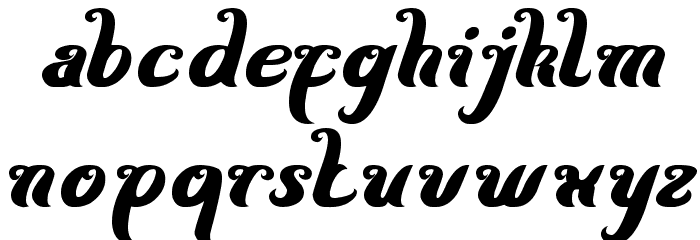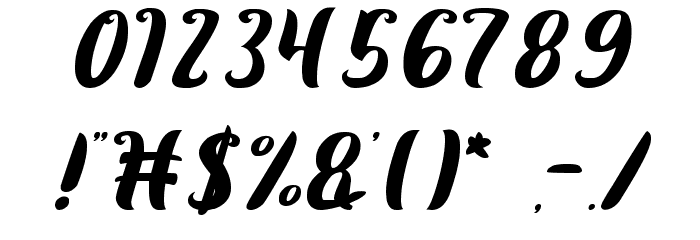
Here Comes The Sun Font
This font features a bold and flowing script style, characterized by its thick, sweeping strokes and playful curves. The letters are interconnected, giving a sense of continuity and fluidity. The uppercase letters are slightly more ornate, with decorative swirls and loops that add a touch of elegance. The lowercase letters maintain a consistent style, with smooth transitions and rounded edges. Numbers and special characters are designed to match the overall aesthetic, ensuring a cohesive look across all text elements. This font exudes a sense of fun and creativity, making it ideal for projects that require a lively and engaging visual appeal.
A bold, flowing script font with playful curves and decorative swirls.